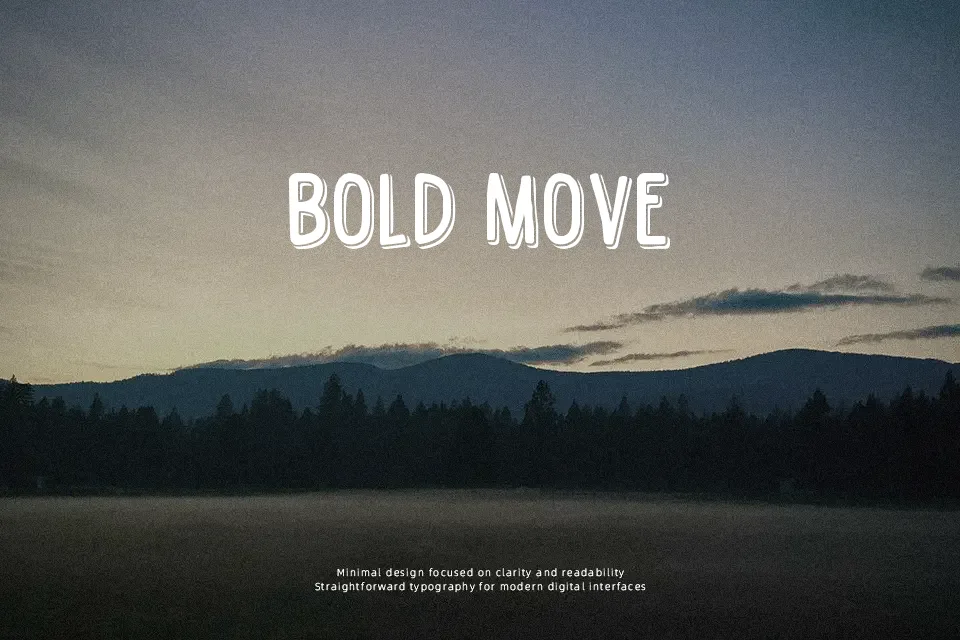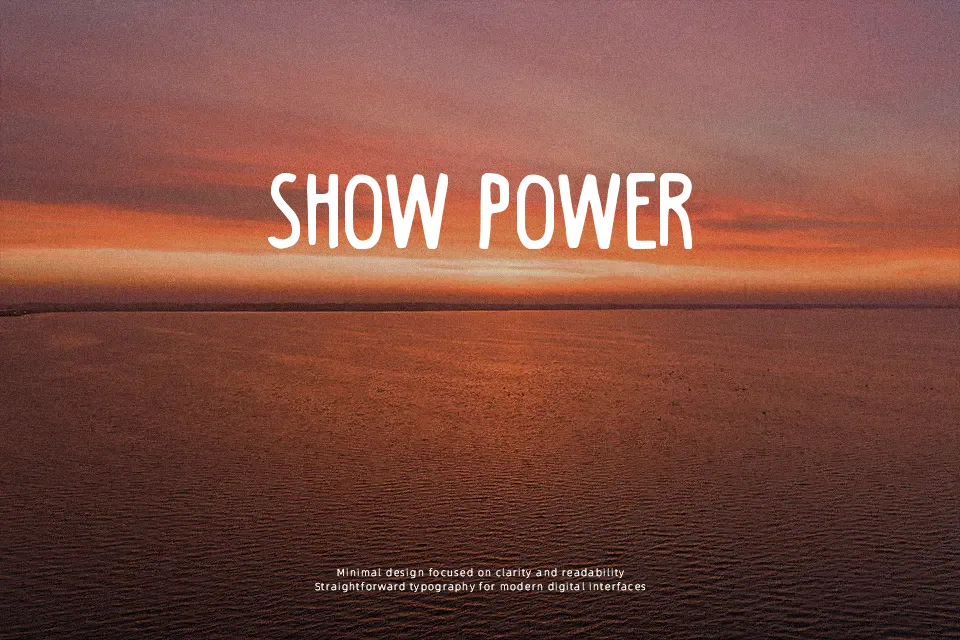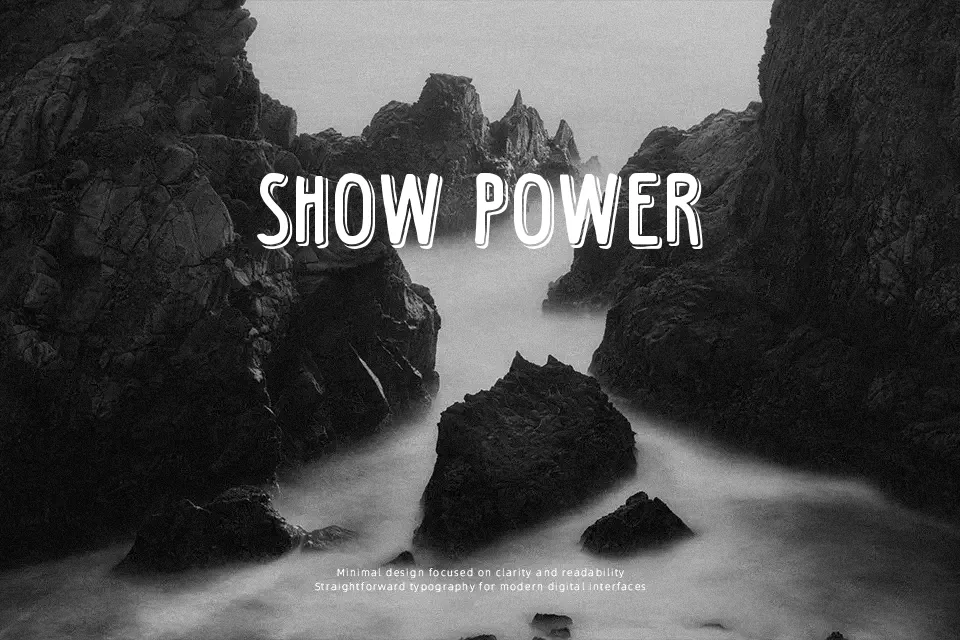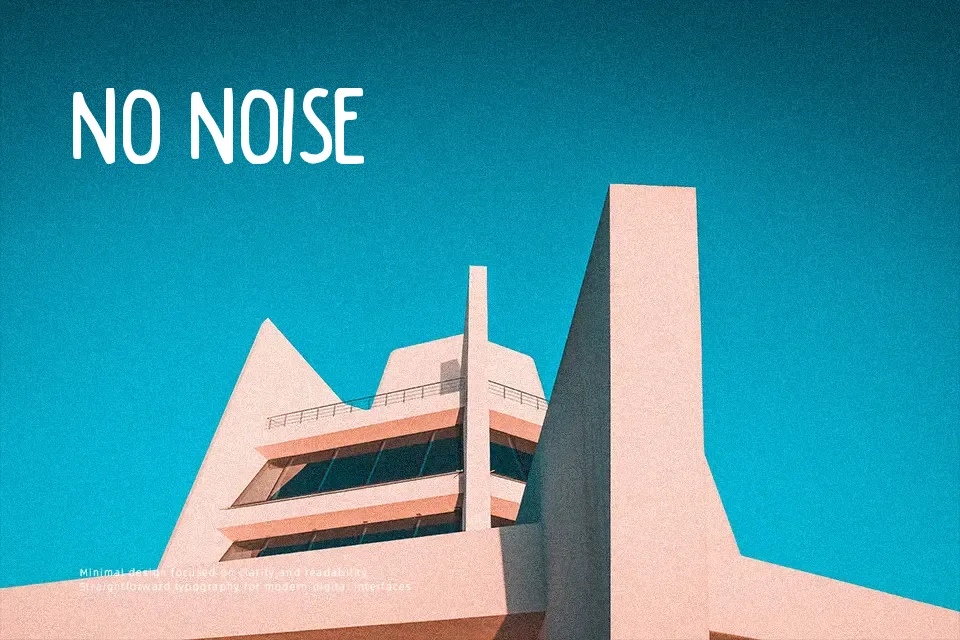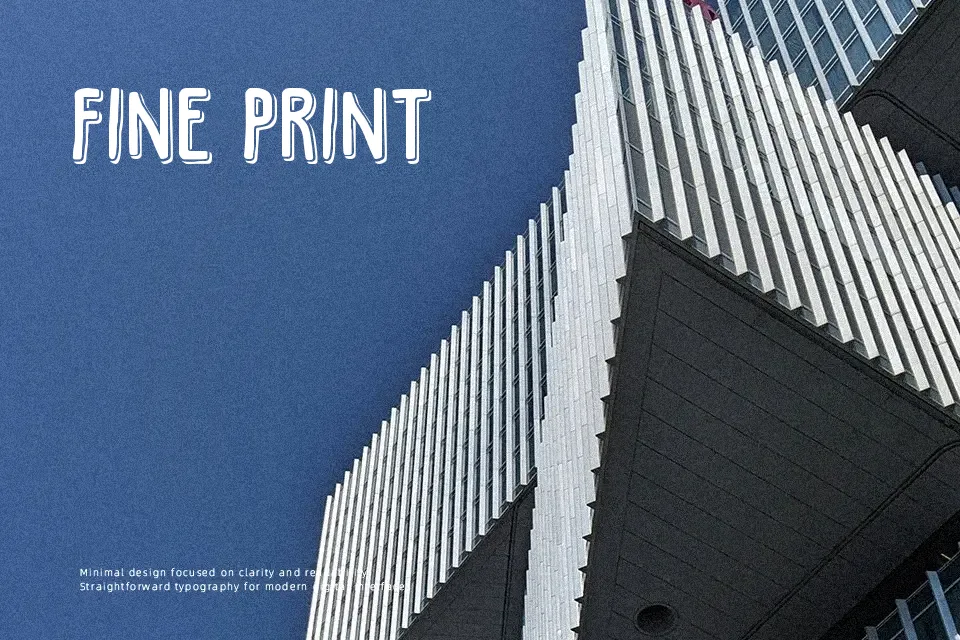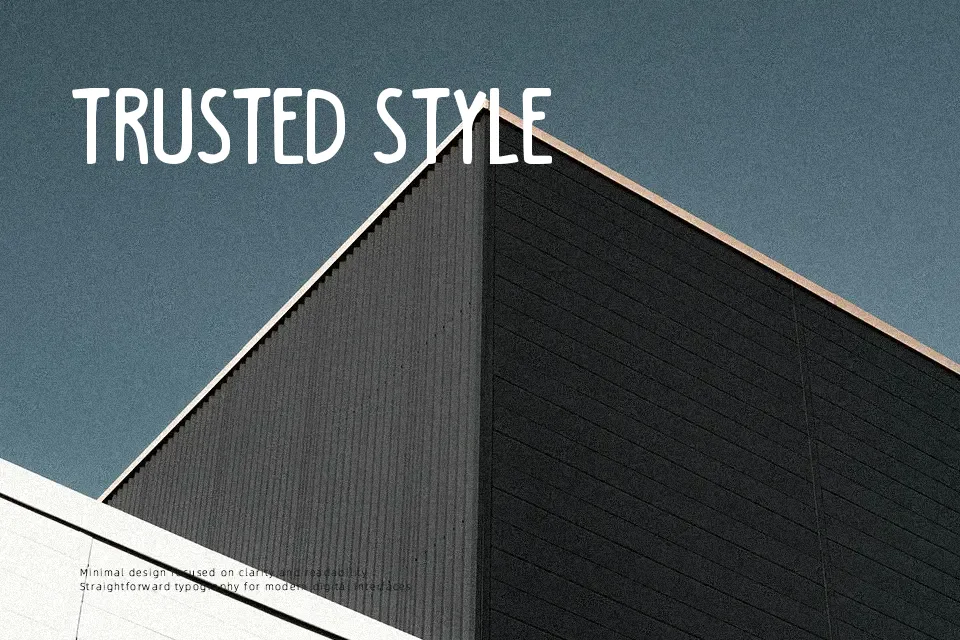
Black Coffee Font
Designed by Jeremy Dixon
Black Coffee Font by Jeremy Dixon is an endearing hand-drawn typeface featuring both a solid base and an eye-catching shaded variant. The slightly uneven strokes and bold structure provide a cozy, authentic feel reminiscent of vintage cafe signage or traditional chalkboard menus. Its charming imperfections make it a brilliant fit for rustic branding, playful posters, or friendly packaging where a handcrafted touch is necessary. The font naturally shines in large display settings but may struggle if applied to lengthy body text or highly formal corporate identities where clean, uniform lines are required. Whether designing a local restaurant logo or a nostalgic event flyer, this decorative style brings instant warmth and character.
– Vintage-style cafe branding and restaurant logos
– Eye-catching event posters and nostalgic flyers
– Friendly, handcrafted product packaging designs
– Dense paragraphs or long reading materials
– Minimalist tech company identities
– Formal corporate documents or strict financial reports
Perfect for branding, logo, and packaging, with a creative and decorative style.